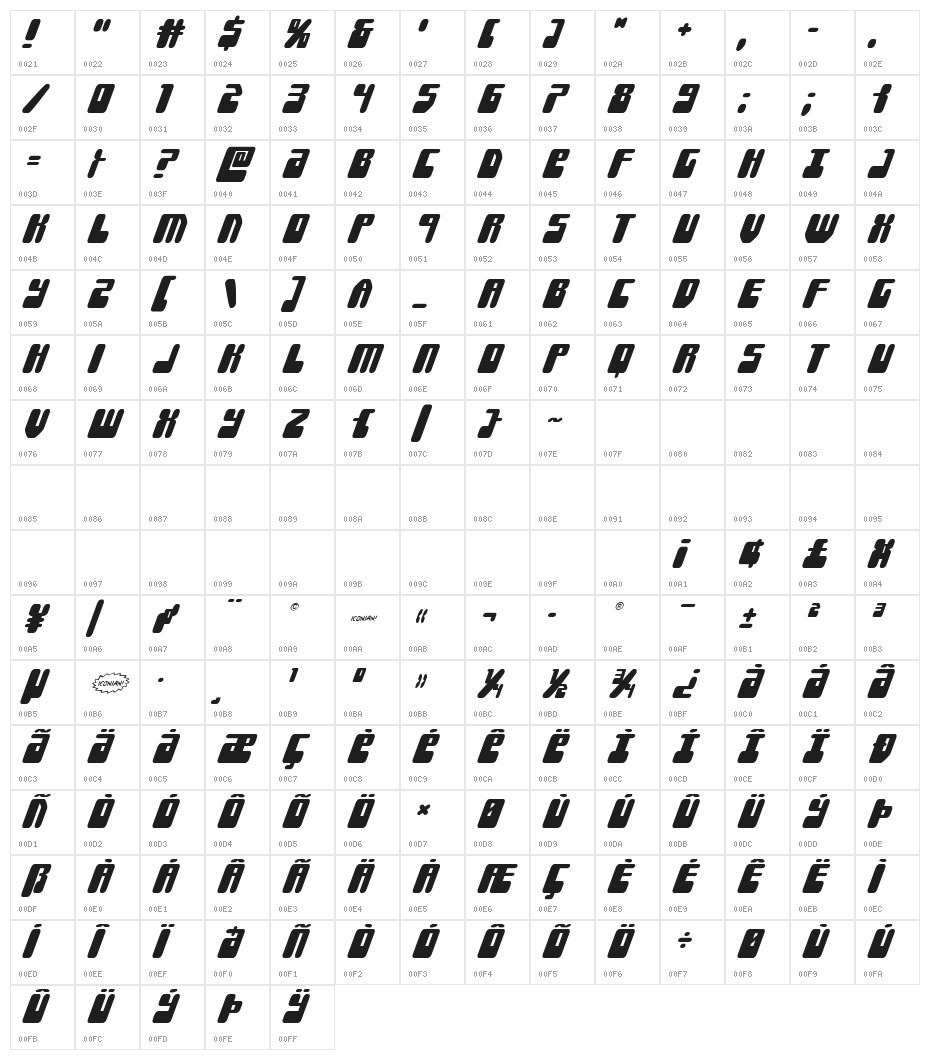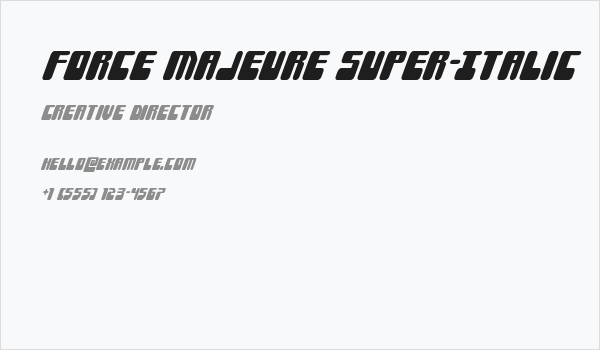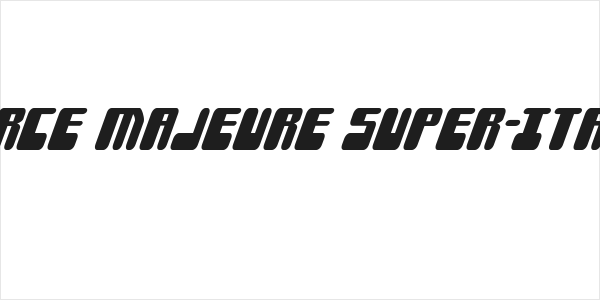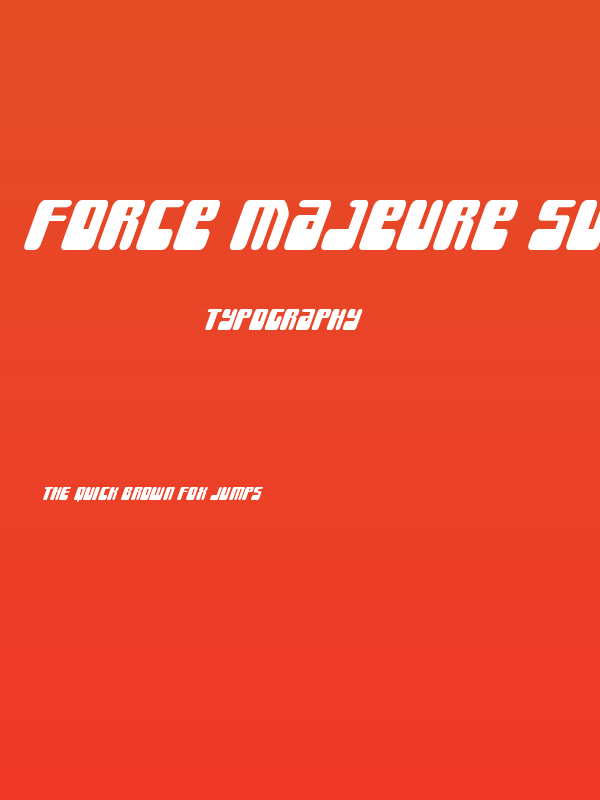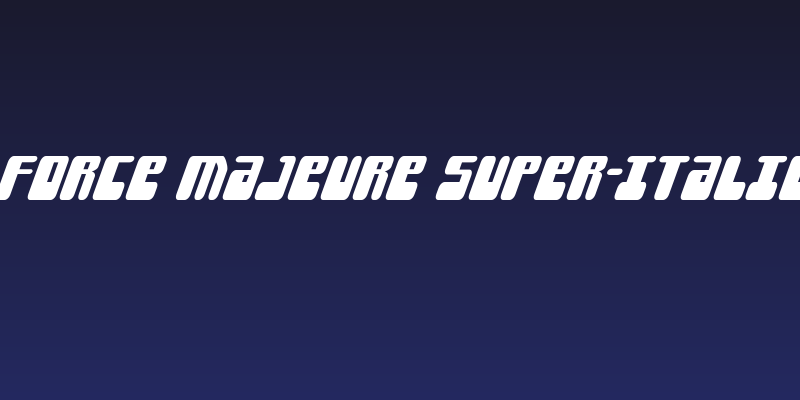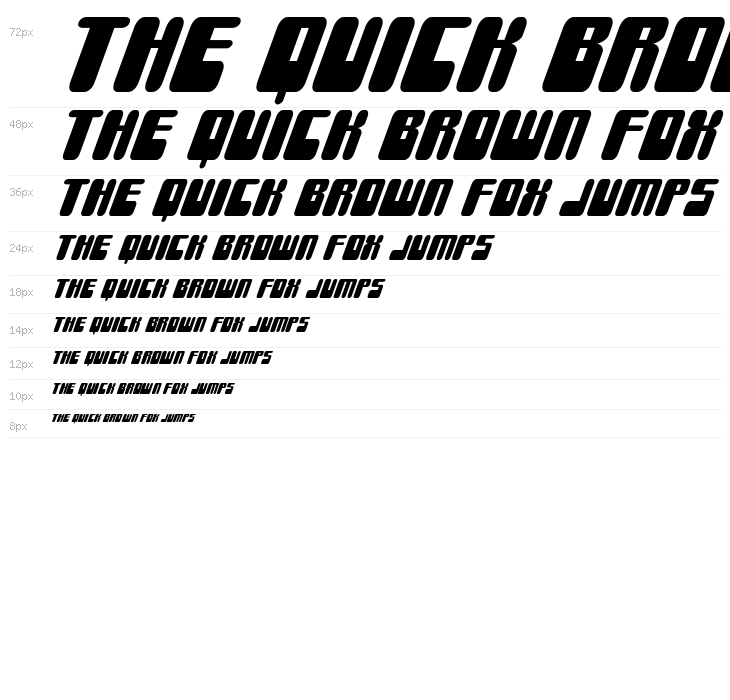
Force Majeure Super-Italic Font
Force Majeure Super-Italic Description
This font features a bold and dynamic style with a distinct italic slant, giving it a sense of motion and energy. The characters are wide and have a substantial presence, with a strong geometric influence. The strokes are thick and consistent, contributing to a high contrast appearance. The overall design is modern and futuristic, making it ideal for projects that require a bold statement. The uppercase and lowercase letters maintain a uniform style, while the numbers and special characters are designed to match seamlessly with the alphabet. This font's unique style makes it suitable for eye-catching headlines and impactful branding.
| Proposed Projects | Ideal for futuristic branding, sports team logos, dynamic posters, and technology-related designs. |